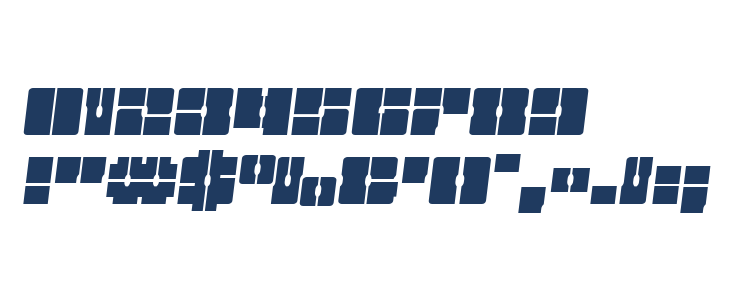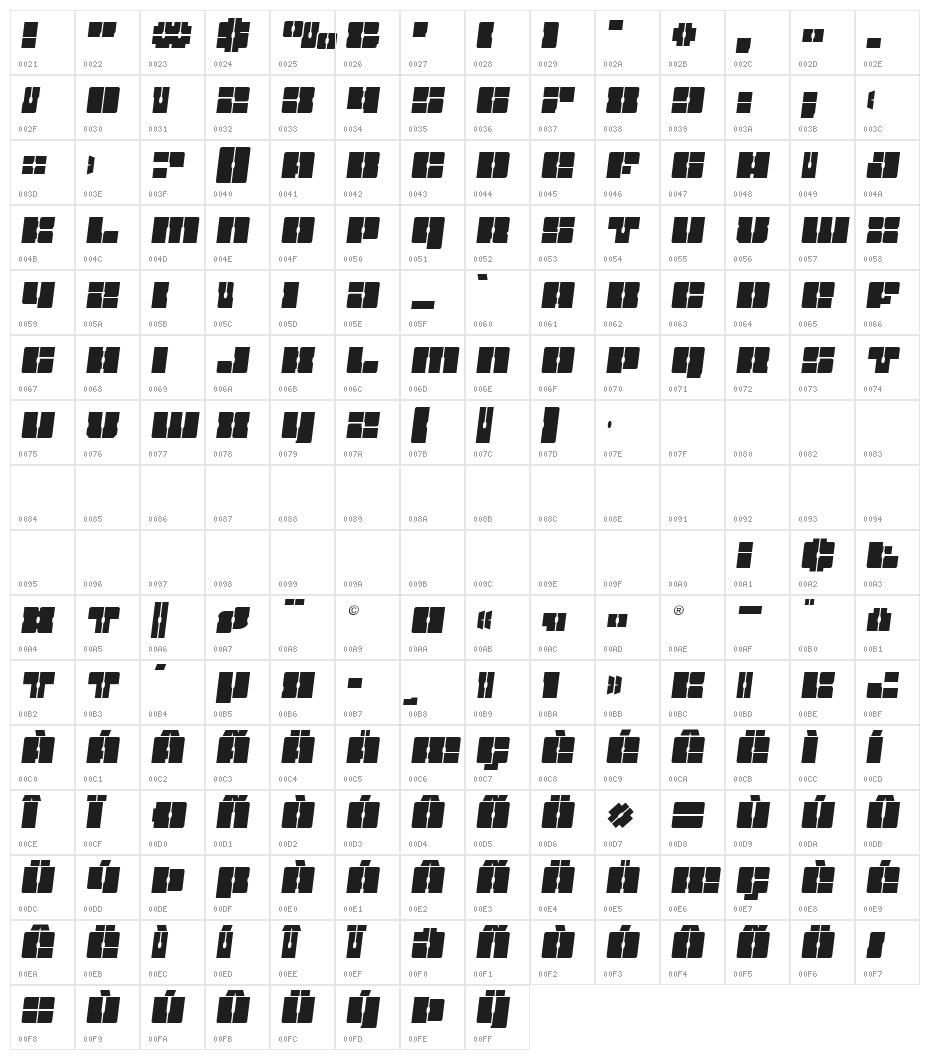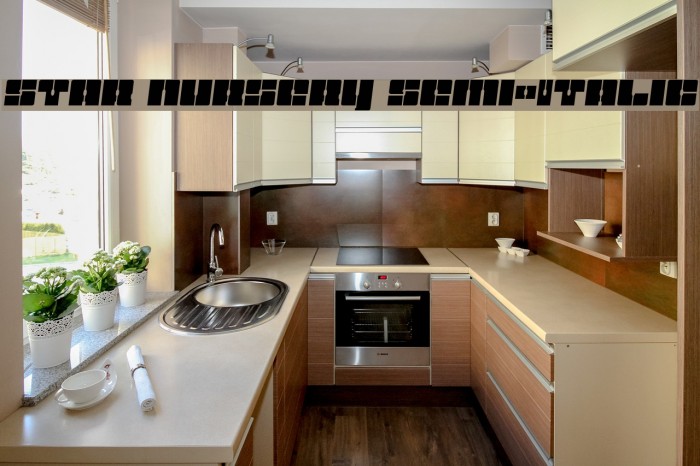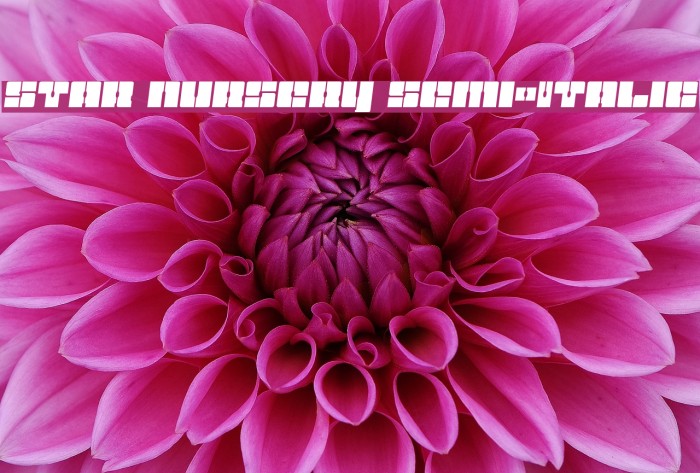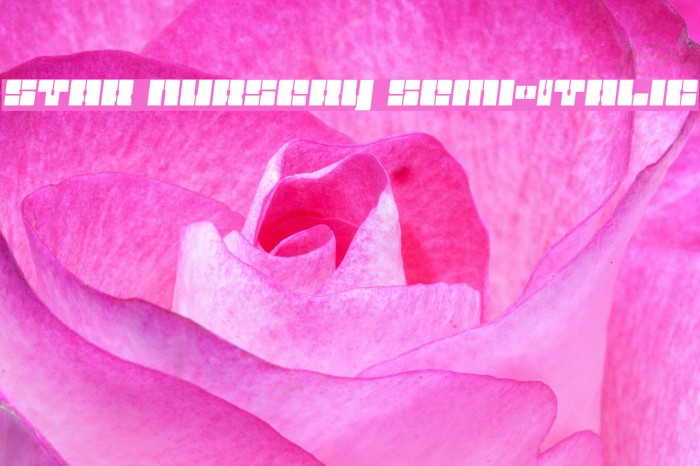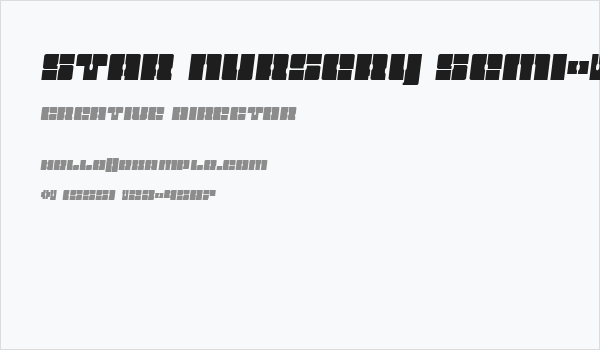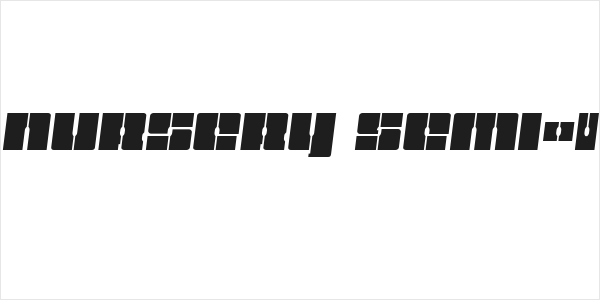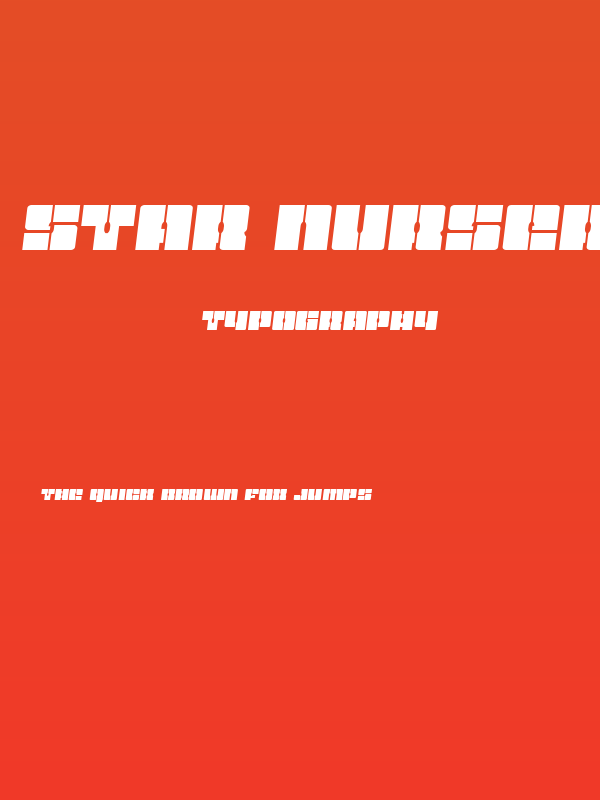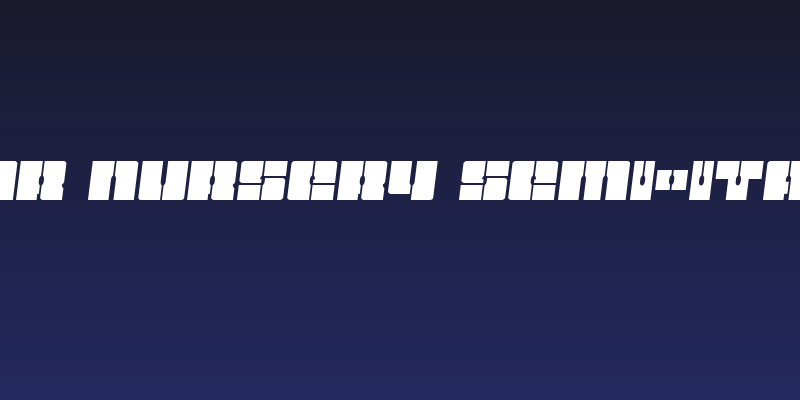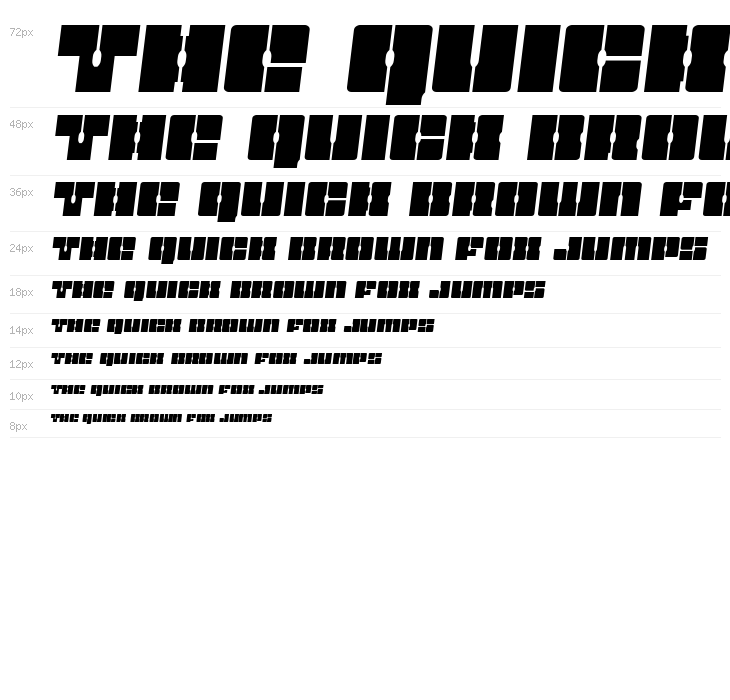
Star Nursery Semi-Italic Font
Star Nursery Semi-Italic Description
This font features a bold, geometric design with a futuristic and industrial feel. The characters are constructed with thick, block-like shapes, each containing small circular cutouts that add a unique, modern touch. The overall appearance is striking and highly stylized, making it ideal for attention-grabbing designs. The uppercase and lowercase letters maintain a consistent style, while the numbers and special characters complement the overall aesthetic. This font is perfect for projects that require a bold statement and a contemporary edge.
Proposed ProjectsIdeal for sci-fi themed posters, video game titles, branding for tech companies, and modern art installations.